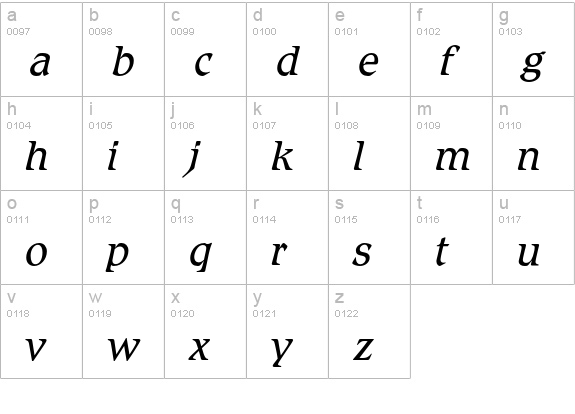
AT Romic Light Italic Font Details
AT Romic Light Italic is a refined, elegant, italic variant in the AT typeface family \xE2\x80\x94 well suited to elegant body text, refined sub-headings, and luxury branding.
The AT Romic Light Italic font is a sophisticated and elegant typeface that exudes a sense of modernity and refinement. Its delicate and flowing curves make it perfect for projects that require a touch of class and sophistication. The light italic style adds a subtle touch of emphasis, making it ideal for headings, quotes, and other design elements that need to stand out. This font is not only visually appealing but also highly versatile, making it suitable for a wide range of design projects. Whether you're creating invitations, packaging, branding materials, or editorial layouts, the AT Romic Light Italic font will add a touch of elegance and style to your designs. Best of all, this font is available for free download at FontsMarket.com. So, if you're looking to elevate your designs with a touch of sophistication, be sure to check out the AT Romic Light Italic font today and add a touch of class to your projects.